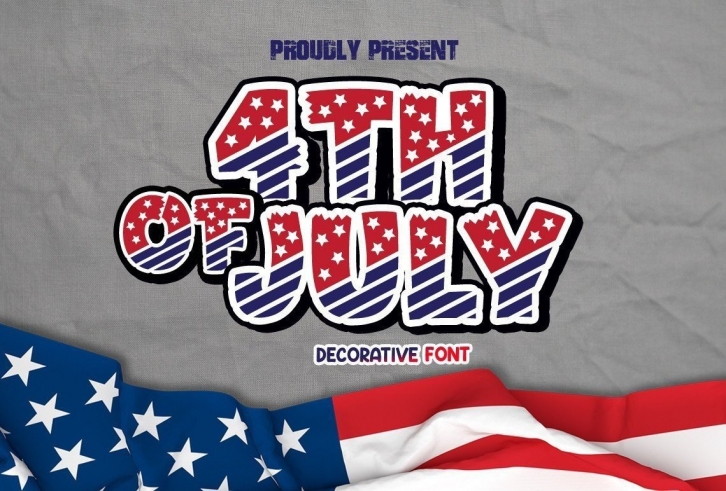
Independence Day is a bold and fun display font. It’s perfect for a wide variety of projects and of course for American-themed projects! Its fun and playful characters make it the perfect font for stickers, mugs, t-shirts, ornaments, independence day event cards, event invitations, and many more!